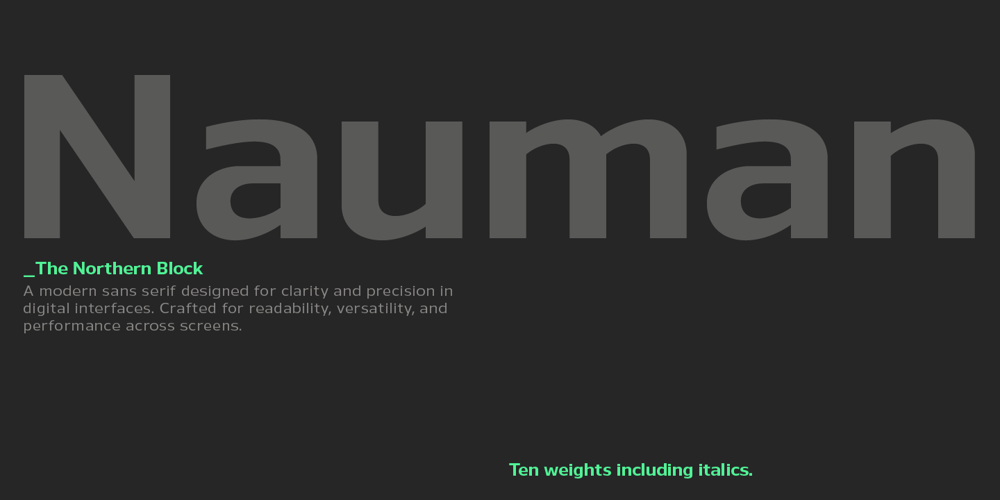
Nauman Font Family was designed by Jonathan Hill and published by The Northern Block. Nauman contains 20 styles and family package options. Nauman is a modern humanist sans serif, meticulously crafted for optimal screen performance. Its broad, open letterforms and precise geometry ensure functionality and legibility, making it an ideal choice for web and on-screen use. Distinctive details like serif-inspired touches on the uppercase ‘I,’ ‘J,’ and lowercase ‘i,’ ‘j’ have been added to enhance readability at small sizes. Unique characters, including a serifed number 1 and an alternative zero, further increase clarity in complex interfaces.Designed with large-scale digital projects in mind, Nauman offers an extensive character set of over 800 glyphs, including stylistic alternatives for the lowercase ‘a,’ ‘e,’ ‘l,’ and ‘M.’ It supports seven numeral styles, true small caps with accents, and advanced OpenType features for flexibility. With manually fine-tuned kerning and a focus on modern interface design, Nauman is perfect for everything from mobile apps to immersive digital experiences, ensuring accessibility and ease of use across platforms.